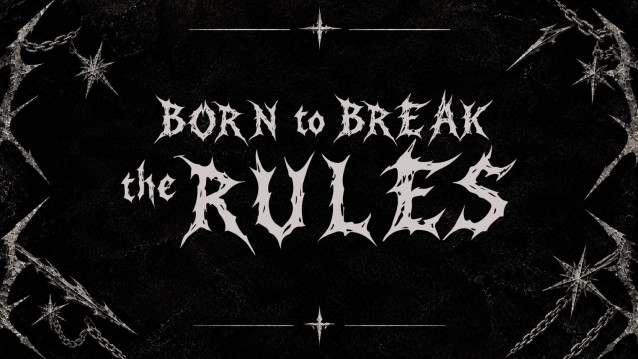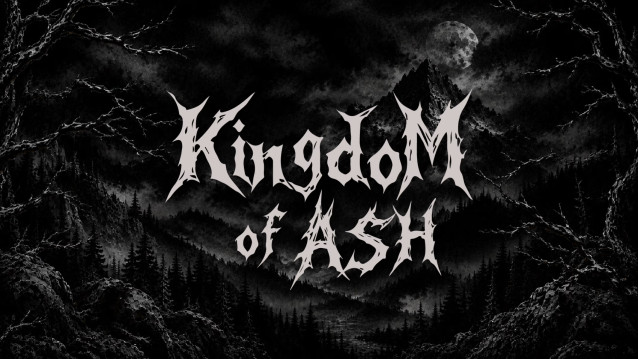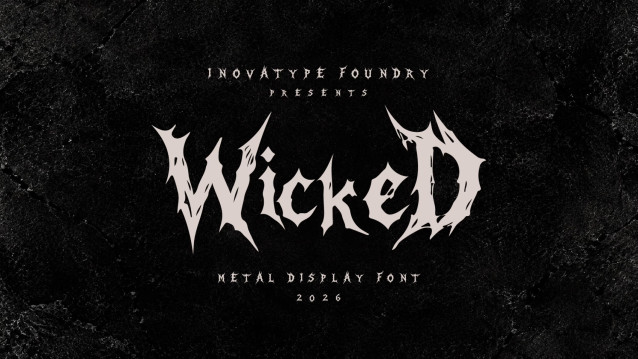
WICKED — Black Metal Display Typeface Font
WICKED — Black Metal Display Typeface Wicked is a dark and aggressive display typeface inspired by the raw visual language of black metal. Sharp, distorted forms and thorn-like details create a chaotic yet distinctive character, designed to command attention in bold headlines, band identities, posters, album artwork, and experimental visual projects.
Wicked is made for designs that need to feel dark, loud, and unmistakable.